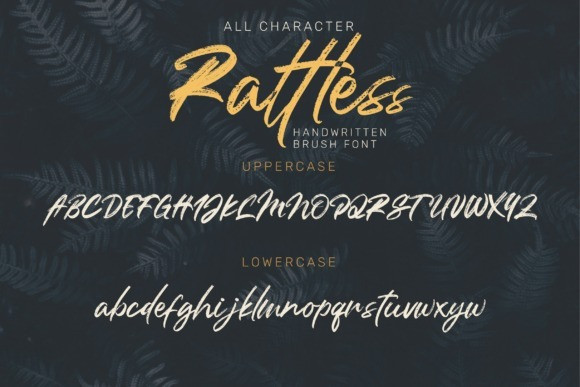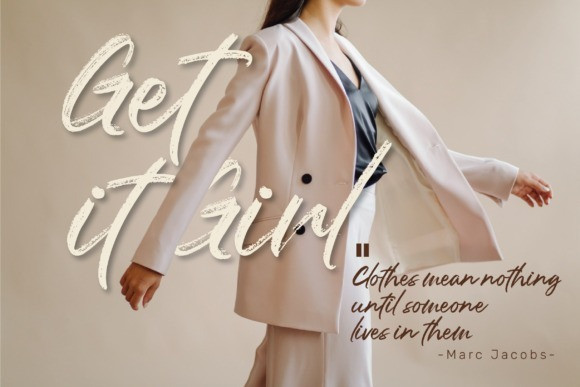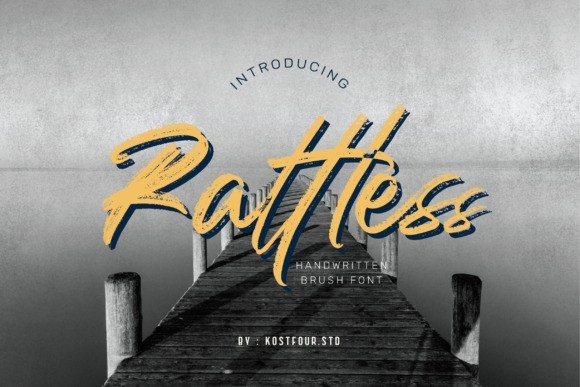
Rattless Brush Font
Rattless Brush Font is a trendy brushed display font that has a street art vibe. This font is suitable for designs such as t-shirts, sportswear, logos, advertisements, clothing, and more.